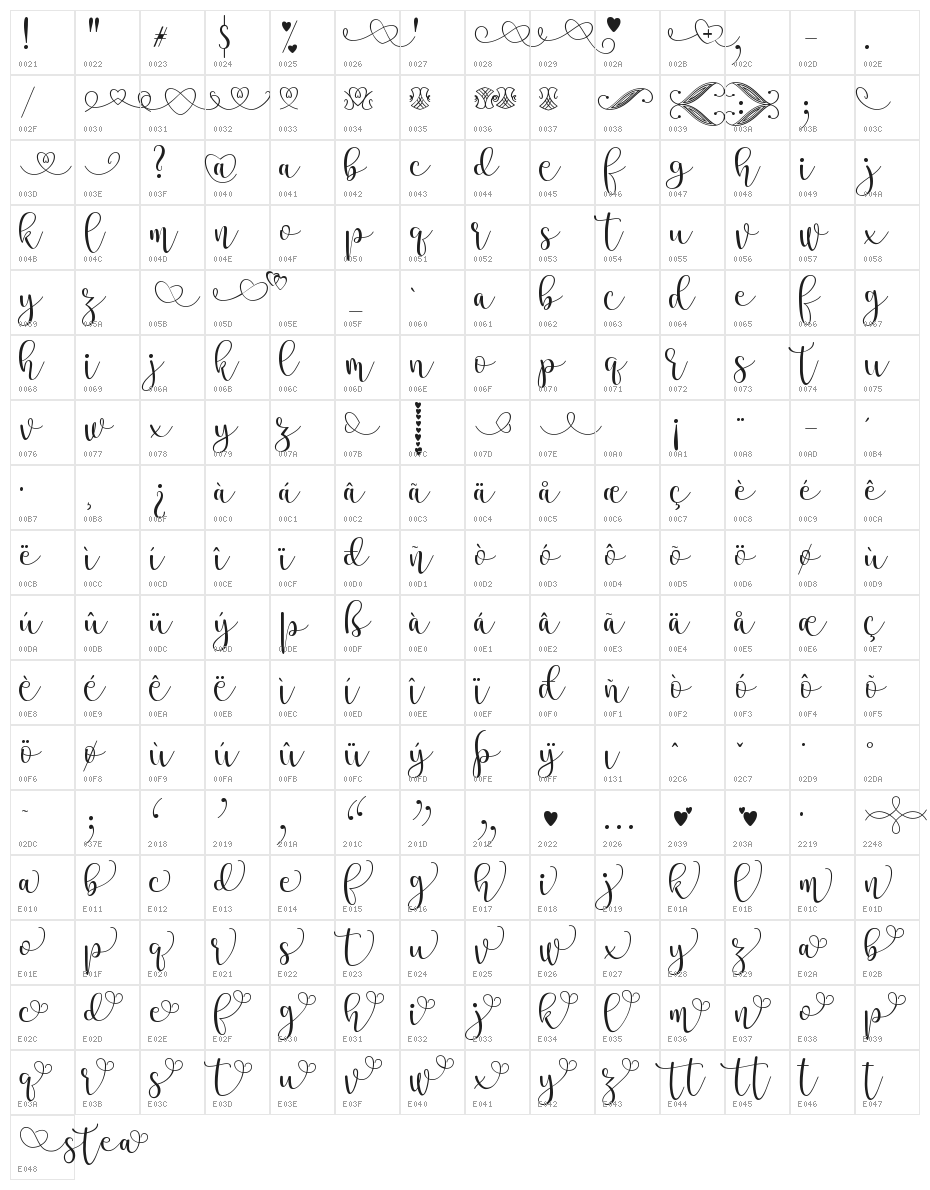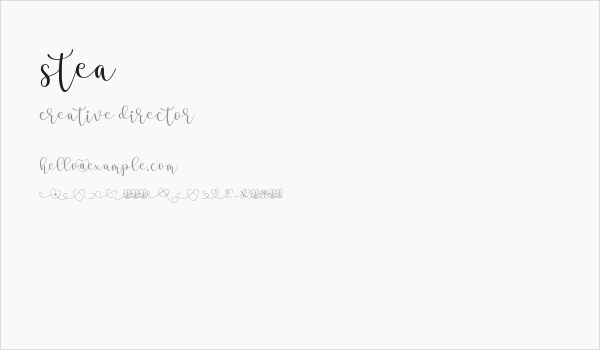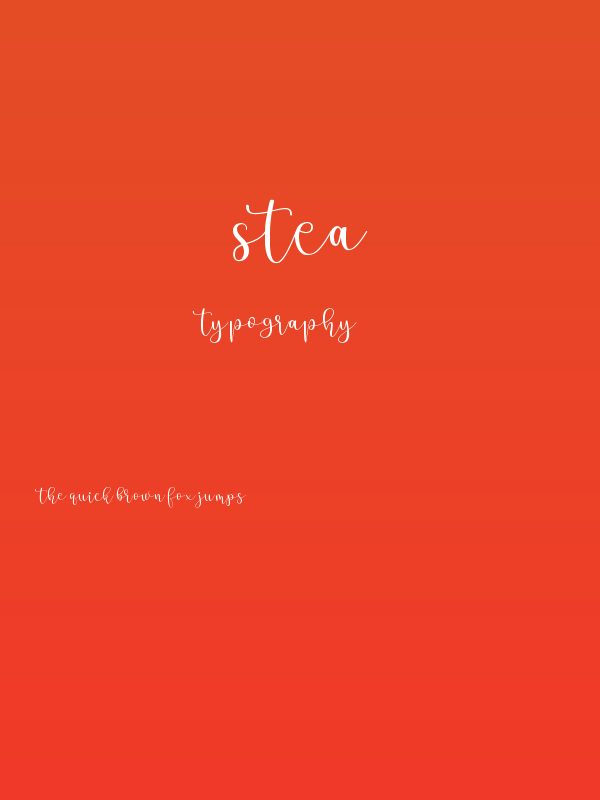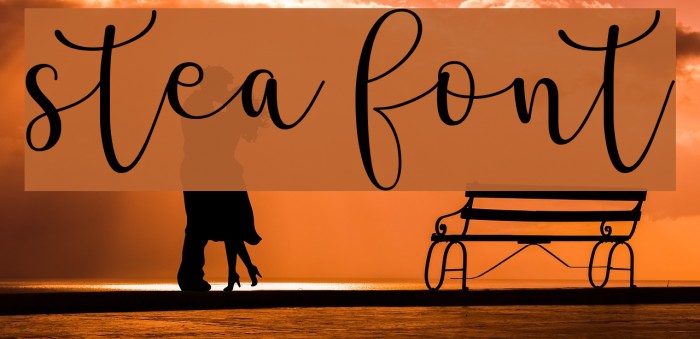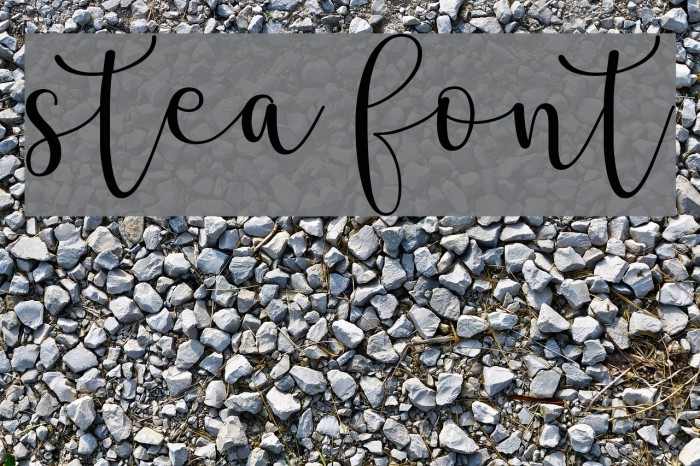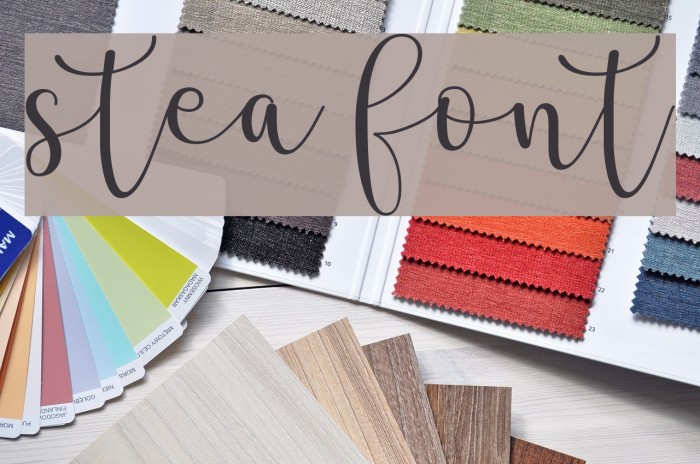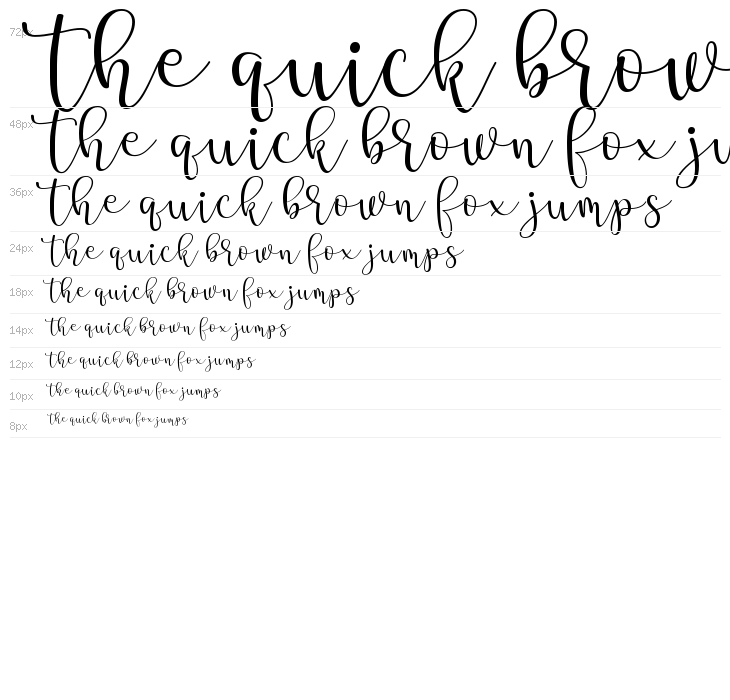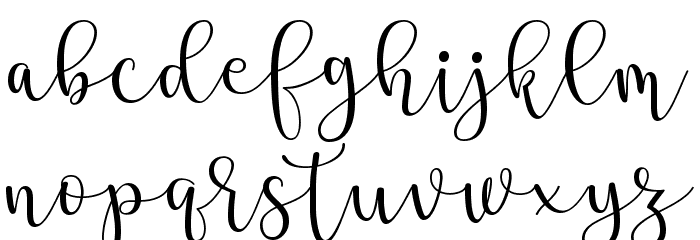
Stea Font
Stea Description
This font is a beautifully crafted script typeface that exudes elegance and charm. The letters are interconnected with smooth, flowing strokes, giving it a handwritten appearance. The uppercase and lowercase letters maintain a consistent style, with delicate curves and loops that enhance its graceful look. The font includes a variety of decorative elements and ligatures, adding a whimsical touch to the overall design. It is perfect for creating romantic and sophisticated designs, with its intricate details and artistic flair. The special characters and embellishments further enhance its versatility, making it suitable for a wide range of creative projects.
| Proposed Projects | Ideal for wedding invitations, greeting cards, branding, and elegant packaging designs. |